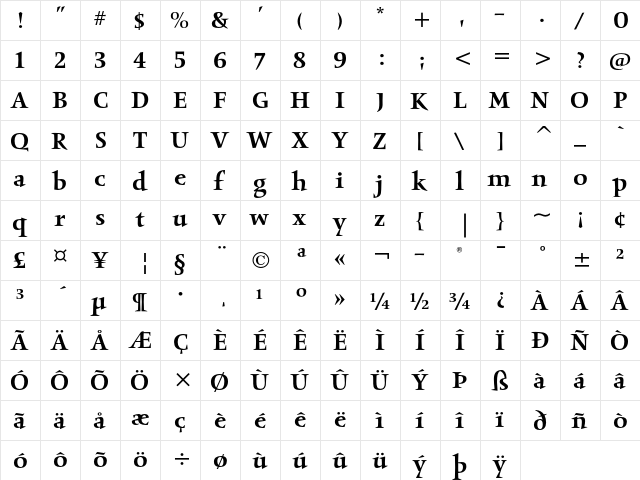
Obelisk ITC Std Medium
| Designer | Phill Grimshaw |
Design Context for Obelisk ITC Std Typeface
Obelisk ITC Std offers clean, dependable letterforms without strong stylistic allegiance, making it a practical choice for designers who need flexibility.